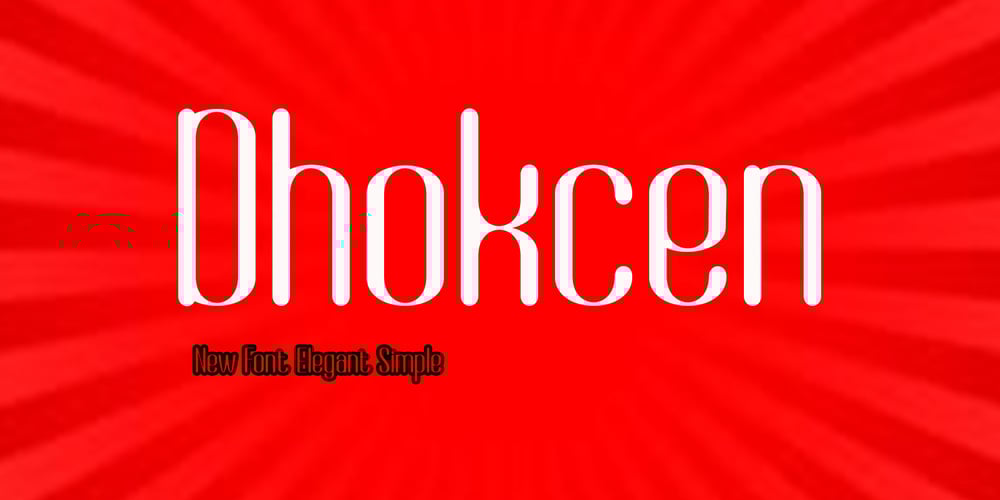
Dhokcen Font Family was designed by Canden Meutuah and published by Canden Meutuah. Dhokcen contains 1 styles and family package options. Introducing Dhokcen is a simple, minimalist and neat sans serif font. It can be easily adapted to a very large range of projects, such as advertising, titles, blogs, logos, branding, invitations, business cards and more!So add it to your creative ideas and watch how it makes it stand out!This font is equipped are also used in various languages.you will not be disappointed with the results.